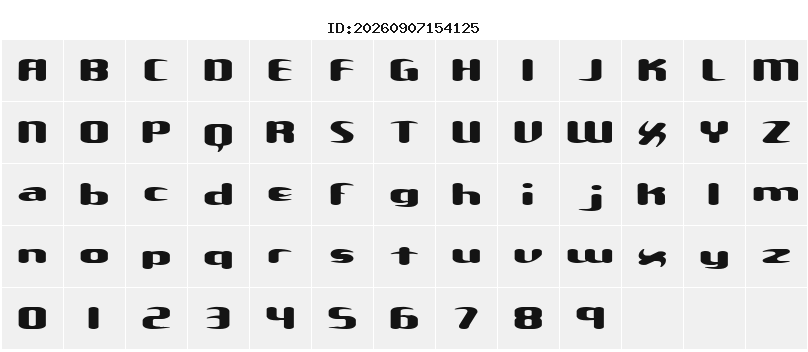
Unexplored Galaxies W (BRK) Preview
• Font Name: Unexplored Galaxies W (BRK)
• Full Font Name: Unexplored Galaxies W -BRK-
About Unexplored Galaxies W (BRK).ttf
Unexplored Galaxies W (BRK).ttf is a modern, elegant sans-serif font designed for ultimate readability and visual harmony. Perfect for branding, headlines, web design, and print materials.